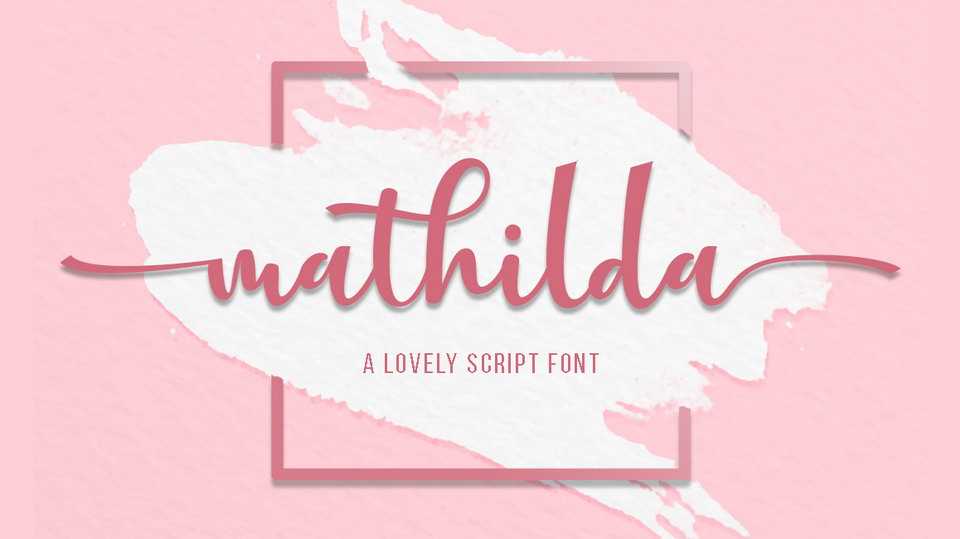
Download Mathilda font, a stylish handwritten script, suitable for logos, labels, wedding invitation, greeting cards, branding, merchandise and much more.